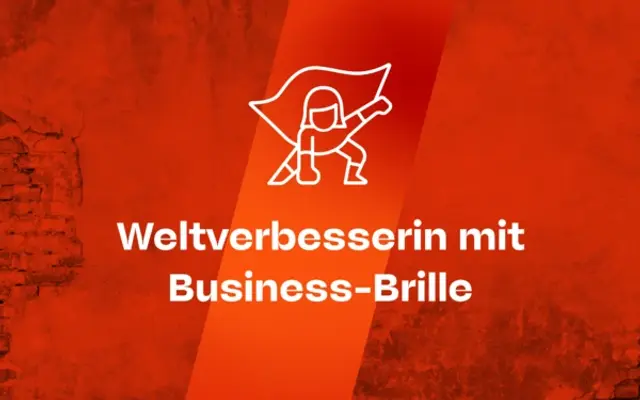
McQueen Collection
A two-subfamily grotesque collection spanning nine weights, pairing a serifed and a pure grotesque variant across a broad weight range from XLight to XBlack.
The collection pairs McQueen and McQueen Grotesk, offering nine weights each with matching italics for a total of 36 styles. The breadth from XLight to XBlack makes it adaptable across display headlines and running text. Both subfamilies share a common structural logic while the Grotesk variant strips away any serif detail for a cleaner, more neutral voice.
The collection comprises two subfamilies, McQueen and McQueen Grotesk, both sharing a clean, high-contrast grotesque structure with a wide weight range, placing them firmly in the grotesque sans-serif tradition.